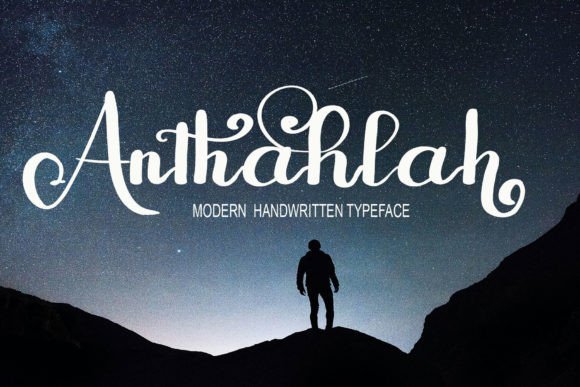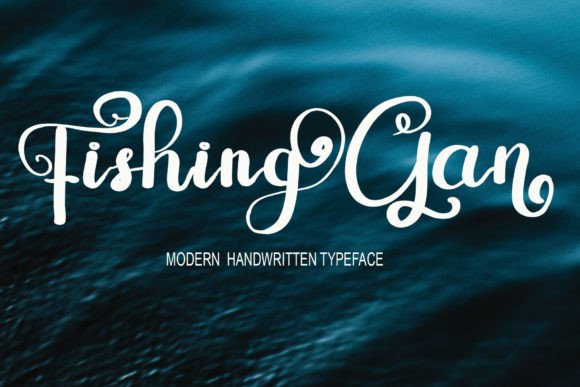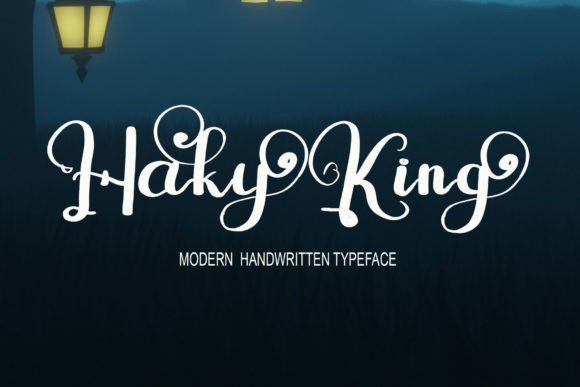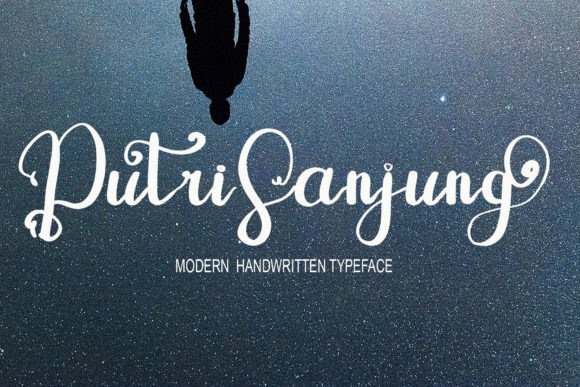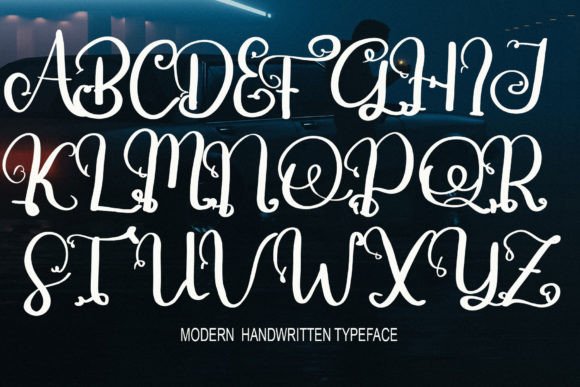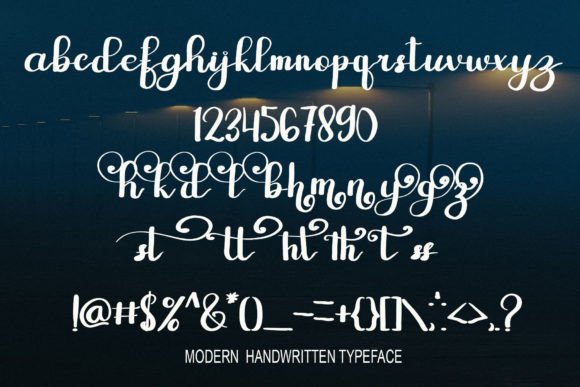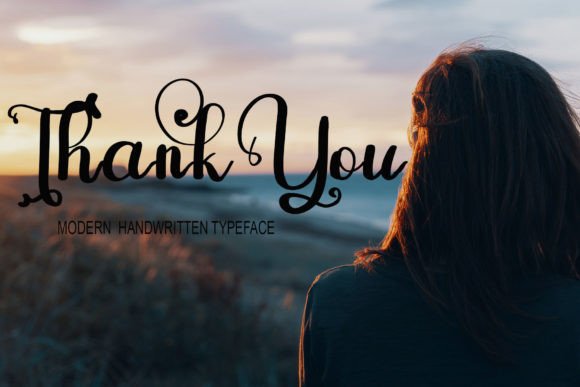
Batavian Font
Introducing Batavian Font
The Batavian Font is a meticulously handcrafted typeface, created with precision using a tablet. Its simplicity and careful construction make it an ideal choice for a variety of design applications. Whether you’re working on websites, crafting elegant wedding invitations, designing professional business cards, creating unique signatures, or developing eye-catching advertisements, Batavian shines as a versatile typeface that combines simplicity with cool and stylish appeal.
Why Choose This Typeface?
• Simplicity and Elegance: Batavian’s clean design adds a touch of sophistication to your projects, making it suitable for various applications.
• Versatile Usage: This font provides a visually captivating choice for different creative endeavors, allowing you to infuse your designs with style and professionalism.
Applications of Batavian
• Web Design: Use this font to ensure text is legible and visually appealing on websites.
• Wedding Invitations: Enhance your invitations with a refined touch that sets the tone for memorable celebrations.
• Business Cards: Perfect for conveying professionalism and sophistication in first impressions.
The Impact of Using Batavian
This font elevates your designs by making them visually captivating and memorable. It becomes a reliable tool for designers seeking to create projects that stand out with elegance. Its balanced form ensures your designs are both refined and captivating.
The Value It Brings
This typeface excels in combining contemporary design aesthetics with classic elegance. By choosing Batavian, you ensure your designs are not only visually appealing but also sophisticated and unique.
This font is also ideal for various creative projects beyond traditional uses. It can enhance digital designs with its elegant flair, making it suitable for websites, brochures, or mobile interfaces. The Batavian Font adapts well to different screen sizes while maintaining its charm. As design trends evolve, this font remains relevant due to its timeless appeal, balancing style with functionality effectively.